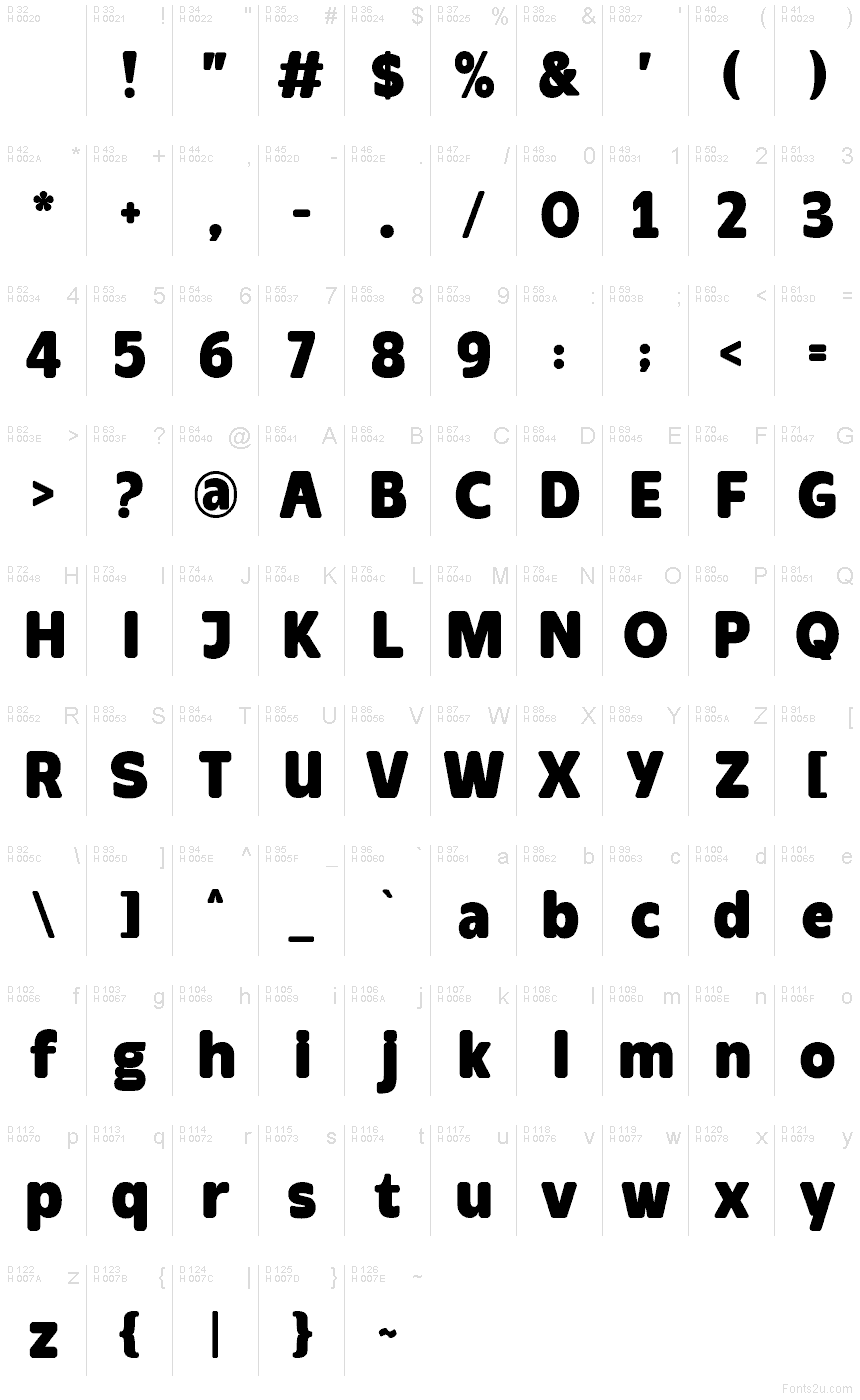
Cartenz Heavy Bold
Cartenz Heavy Bold font by Four Lines is a bold sans-serif with a smooth contemporary style. The characters have a rounded finish, which gives it an approachable look and friendly energy. The black typeface is perfect for all types of users because its smoothness makes it equally suitable for small texts and heavy headlines.
Among countless uses of Cartenz Heavy Bold are book or magazine covers, titles, headings, comic books, movie posters, quotes posters, branding materials, photography images, science projects packaging designs among many other projects in different creative fields.